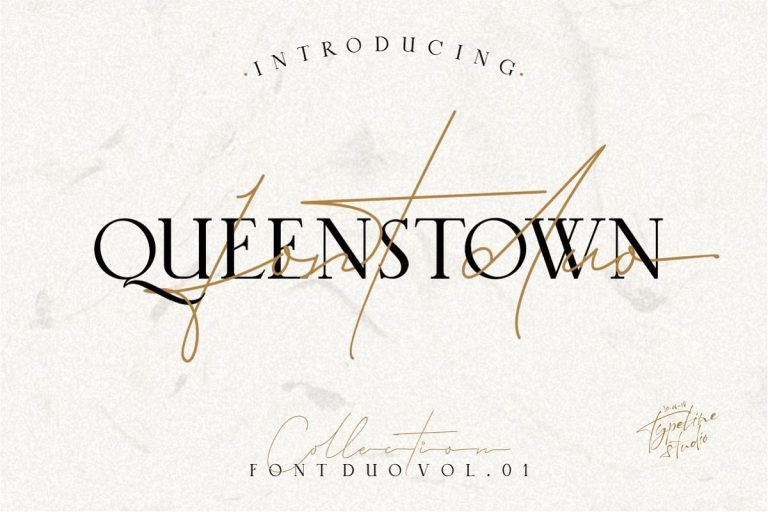
Queenstown Signature Font
Hi Designer! A handwritten script with a natural & stylish flow, Give your designs an authentic handcrafted feel. Introducing Queenstown Font. Queenstown is a Font Duo serif and modern script signature that are very beautiful,luxurious and high class fashion font. This font is perfect for making fashion branding logos,book title,logo photography,watermark pgotography, social media, wedding invitations, taglines, headlines, and of course signatures.